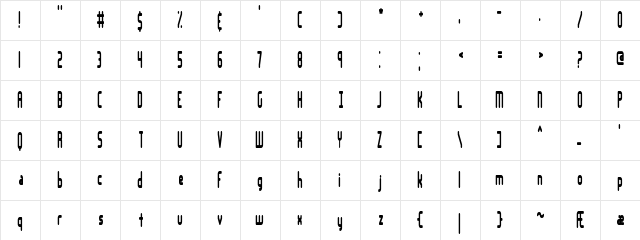
Lakeshore BRK Regular
| Foundry | ƎIGMA FONTS |
| Designer | ƎIGMA FONTS - Brian Kent |
Design Context for Lakeshore BRK Typeface
Lakeshore BRK offers clean, dependable letterforms without strong stylistic allegiance, making it a practical choice for designers who need flexibility.